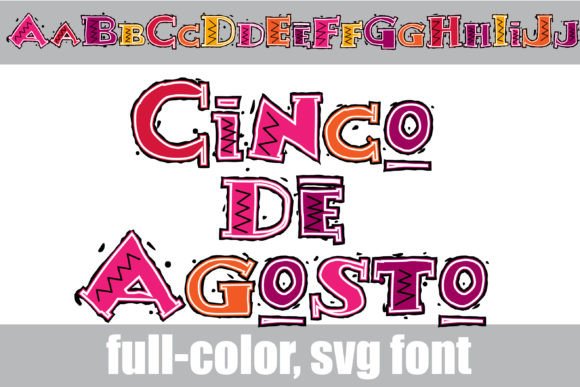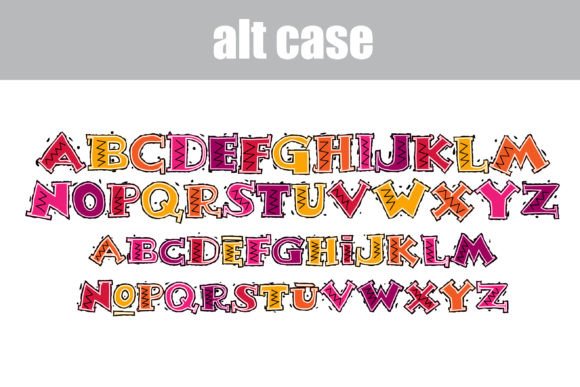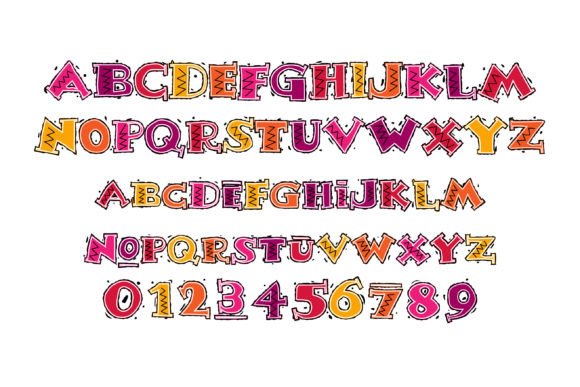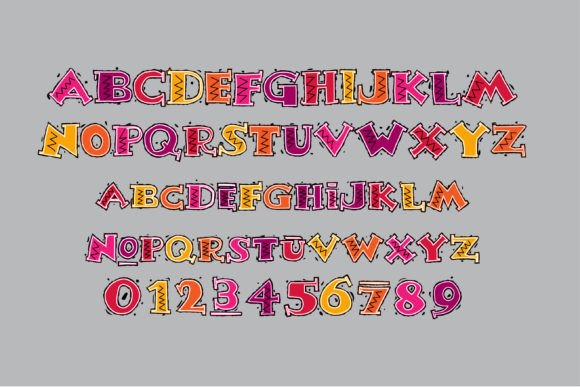
Cinco De Agosto Font
About the Cinco De Agosto Font
The Cinco De Agosto Font offers a perfect balance of form and function for your design needs. This full-color font features an Aztec font with a hot, summer, color palette. There is an alt case with additional colors you can access through your system’s character map. This font works best for titles, displays, posters and more. Please note color fonts will show as black in non compatible programs. This font type is compatible with Silhouette Studio.